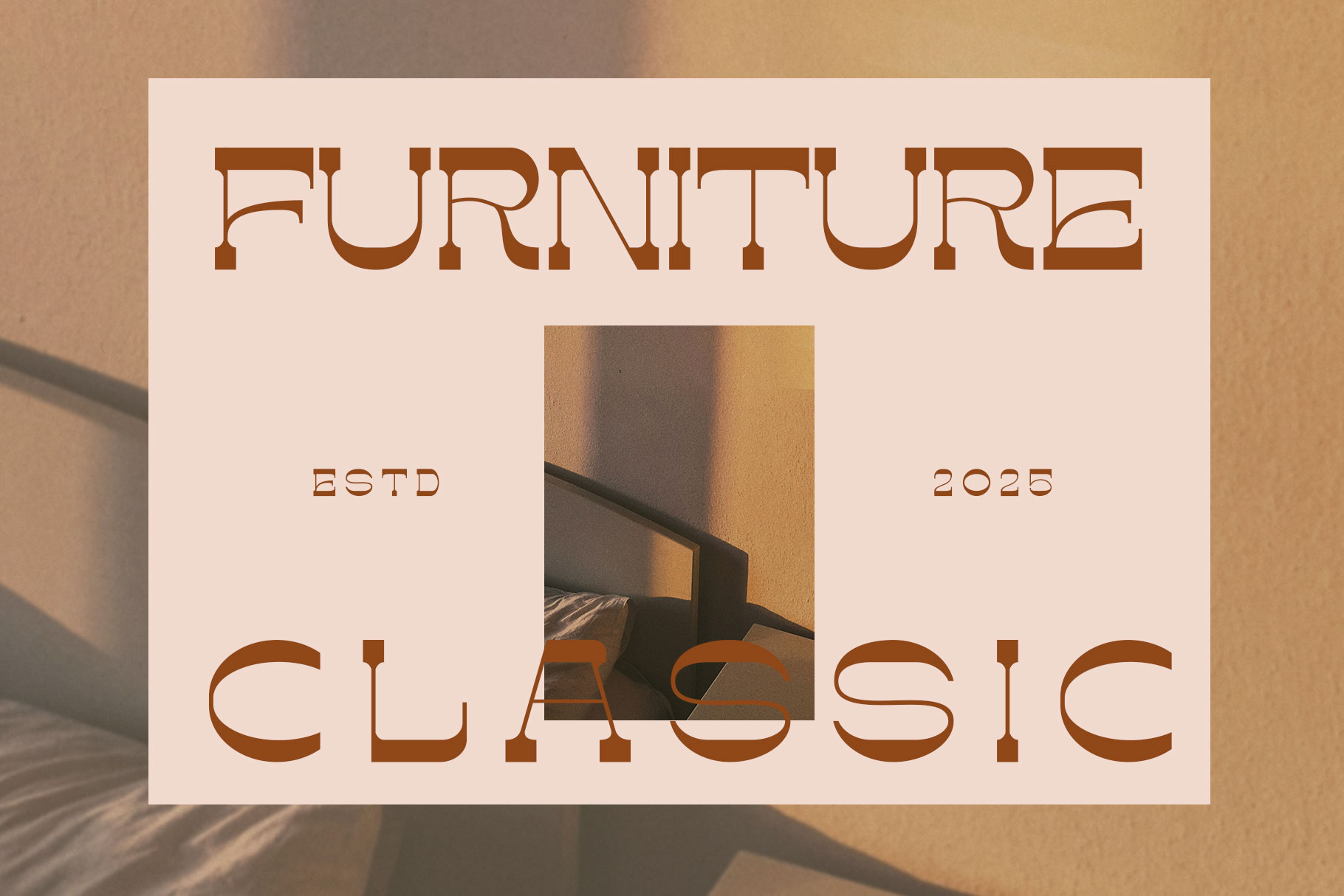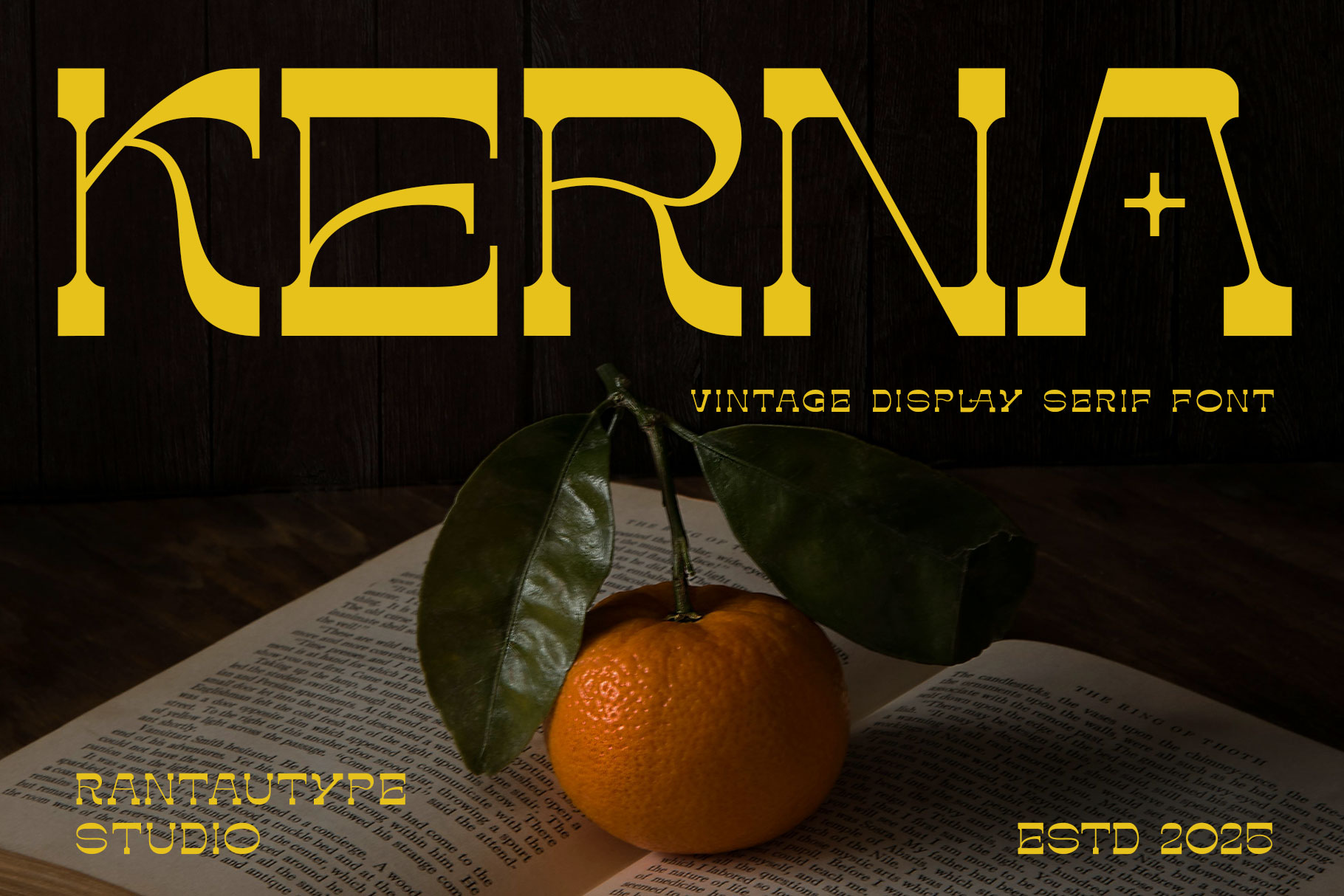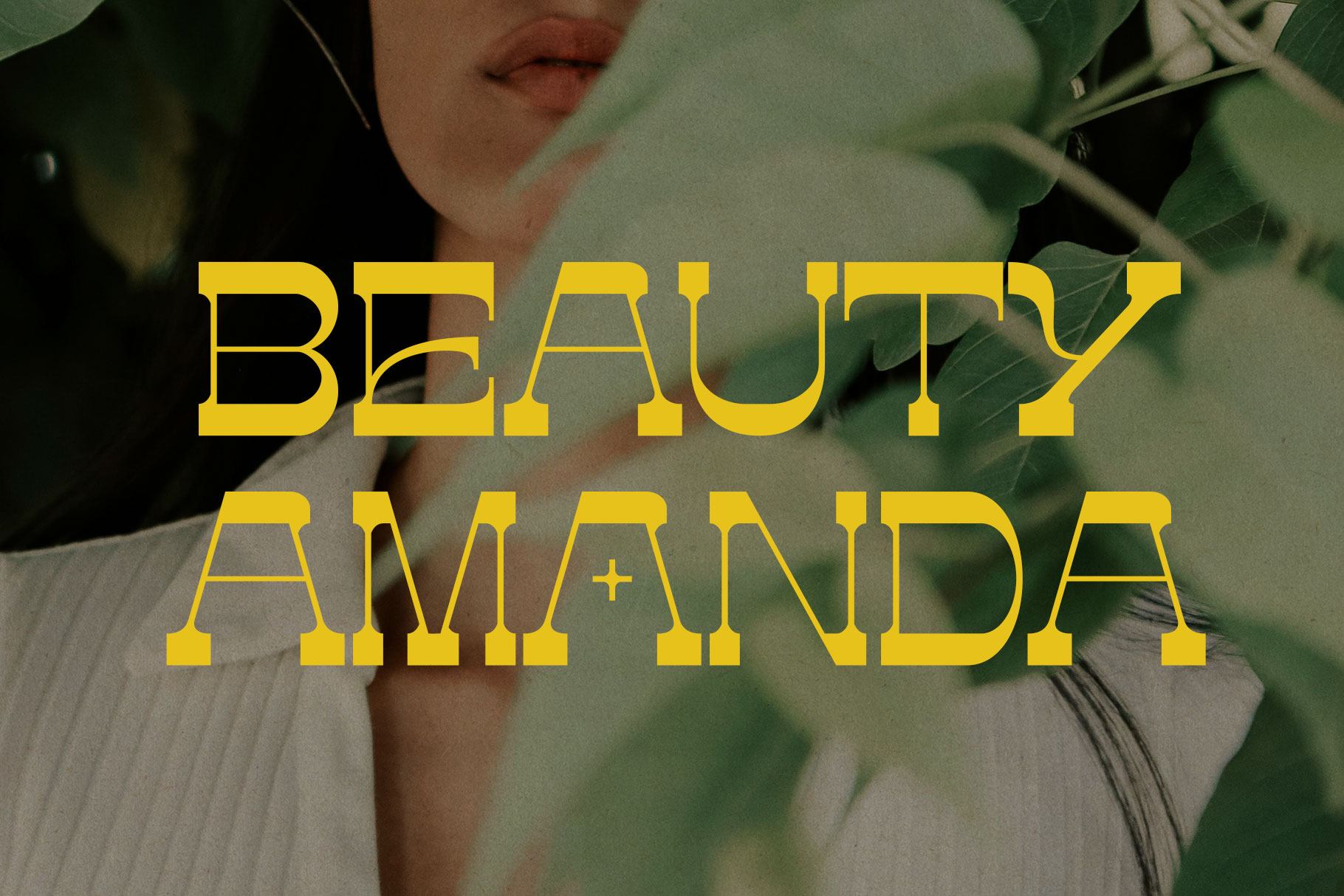
Kerna Vintage Display Serif Font
Kerna captures the charm of classic typography while adding a touch of modern refinement. This font style combines bold serifs, elegant curves, and carefully balanced proportions, evoking the nostalgic beauty of early 20th-century print design. Each letterform reflects a sense of craftsmanship and timeless elegance, making it perfect for projects that seek to convey tradition, sophistication, and authenticity.